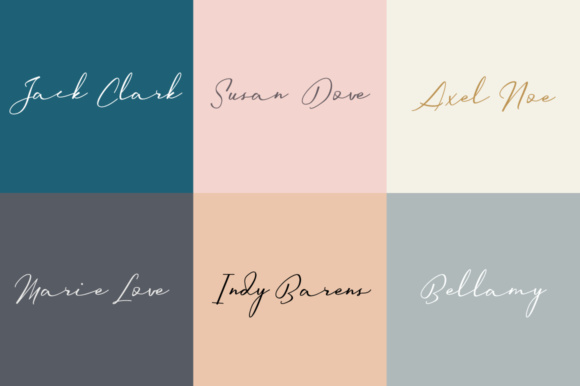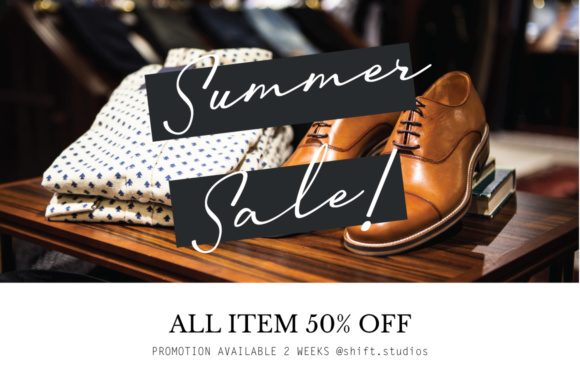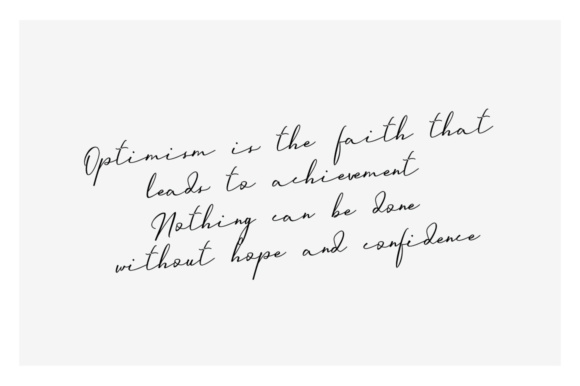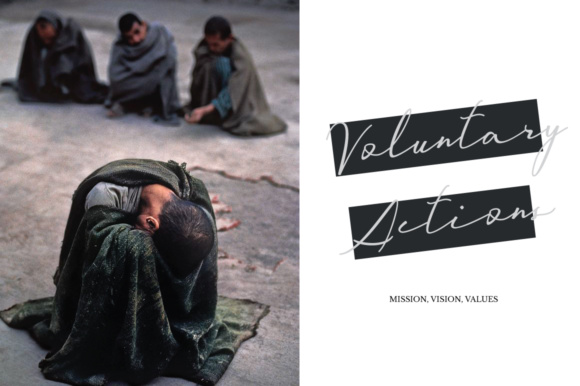
Euforia Font
Euforia is a bouncy script and handwriting font which will give your design a beautiful and elegant look.
Perfect for displays, headers, invitations, blogs, poster and much more. Euforia will become a essential font in your collection!